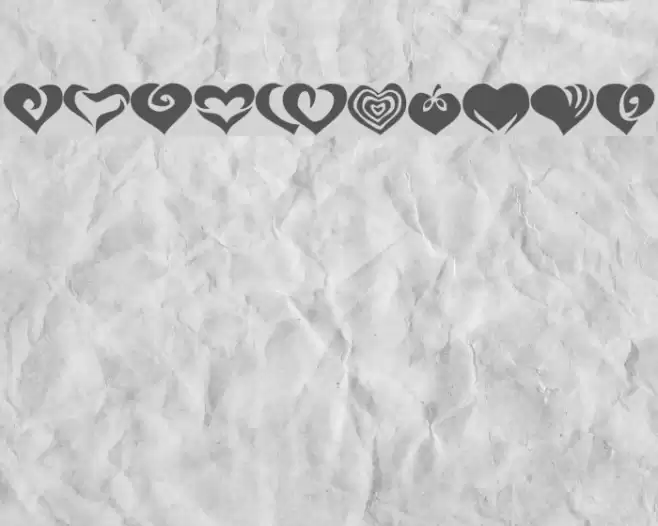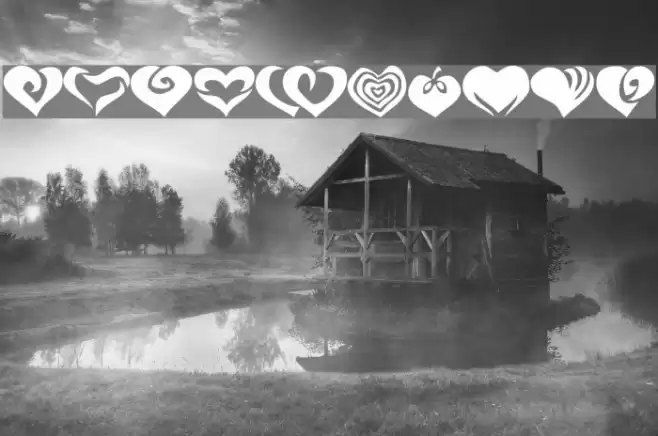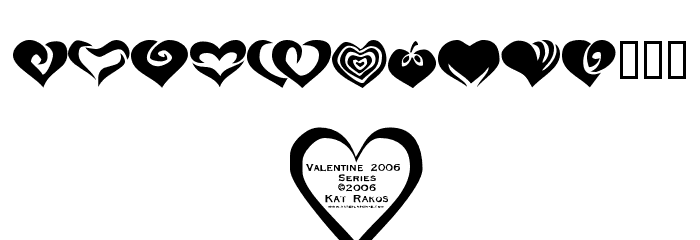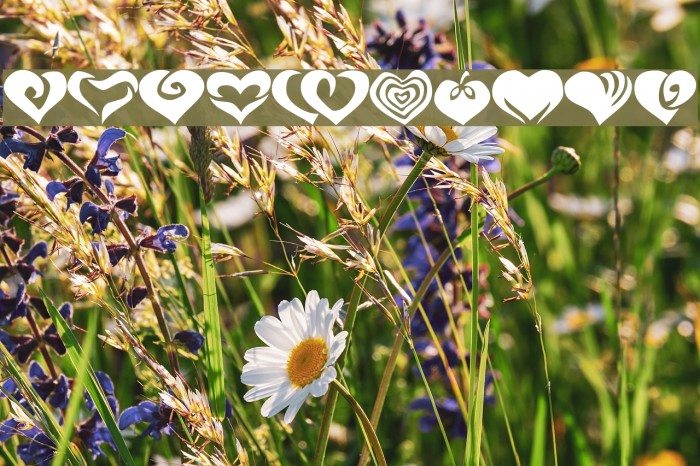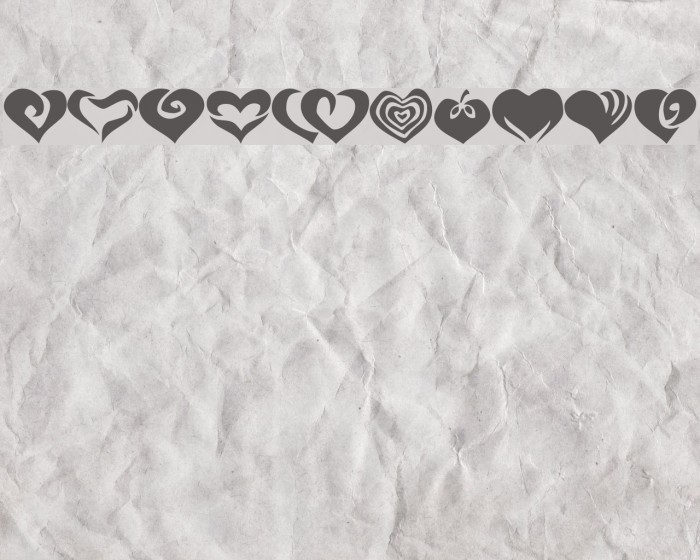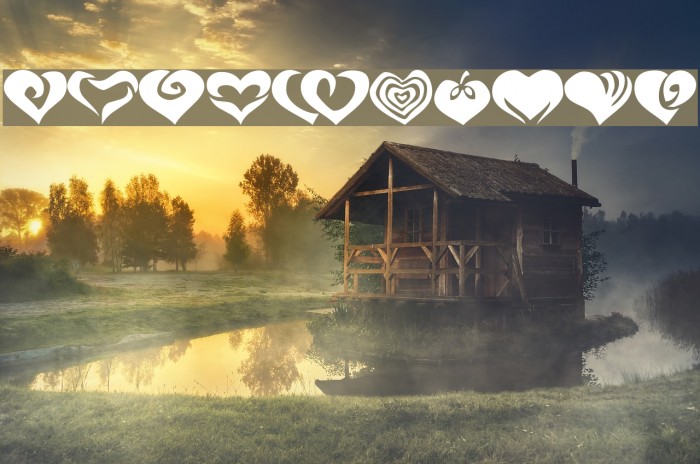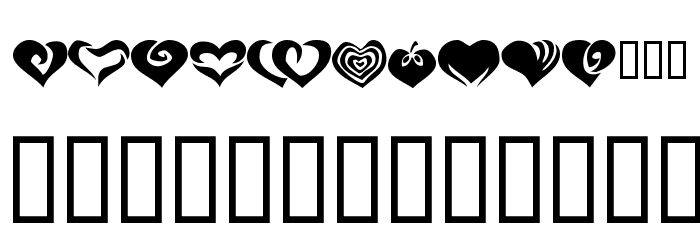
KR Valentines 2006 Two Font
KR Valentines 2006 Two Description
This decorative font features a series of heart-shaped designs, each with unique patterns and motifs. The characters are stylized as hearts with various embellishments such as swirls, stripes, and cut-out shapes, creating a playful and romantic theme. The font is ideal for Valentine's Day projects or any design requiring a touch of love and affection. The bold and graphic nature of the designs makes them stand out, perfect for eye-catching headlines or decorative elements.
A decorative heart-themed font with playful and romantic designs from Uncategorized fonts.
- Proposed Projects: Ideal for Valentine's Day cards, wedding invitations, romantic event posters, and love-themed crafts.
- Use Case: Headlines, Decorative elements